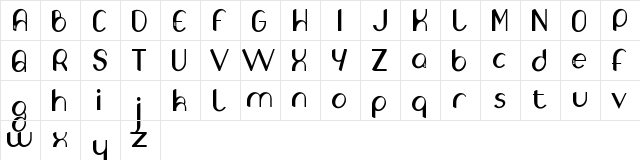
Olivia01 Regular
| Foundry | BenoԴ Sjoholm |
| Designer | BenoԴ Sjoholm |
Design Context for Olivia01 Typeface
Olivia01 offers clean, dependable letterforms without strong stylistic allegiance, making it a practical choice for designers who need flexibility.